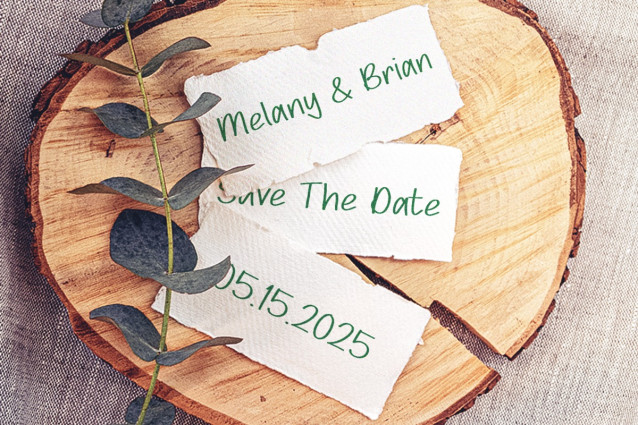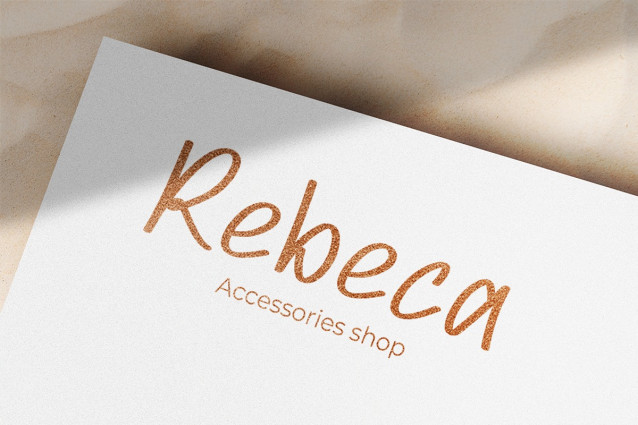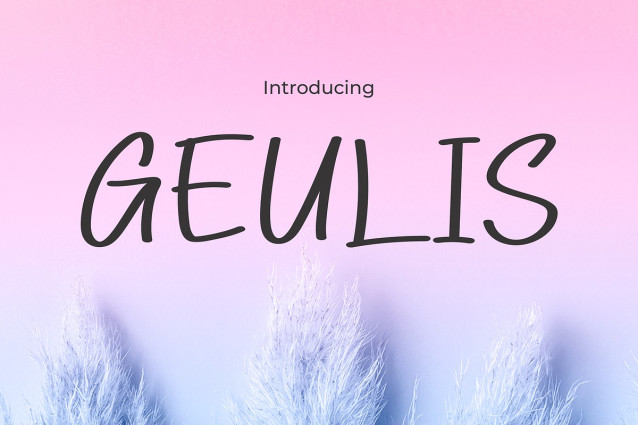
Geulis Font
Geulis Font a font that brings a captivating touch of elegance to every project. With graceful letters and exquisite accents, this font creates an unparalleled sense of luxury.
Every letter in “Geulis” is meticulously crafted, showcasing perfect clarity and elegance. Suitable for various design purposes, from wedding invitations to corporate materials, this font leaves a lasting and unforgettable impression.
With “Geulis” your creativity will flourish limitlessly. Fine details and perfect proportions create visual harmony, turning each word and sentence into a work of art. Get it now and let your designs shine with captivating beauty.